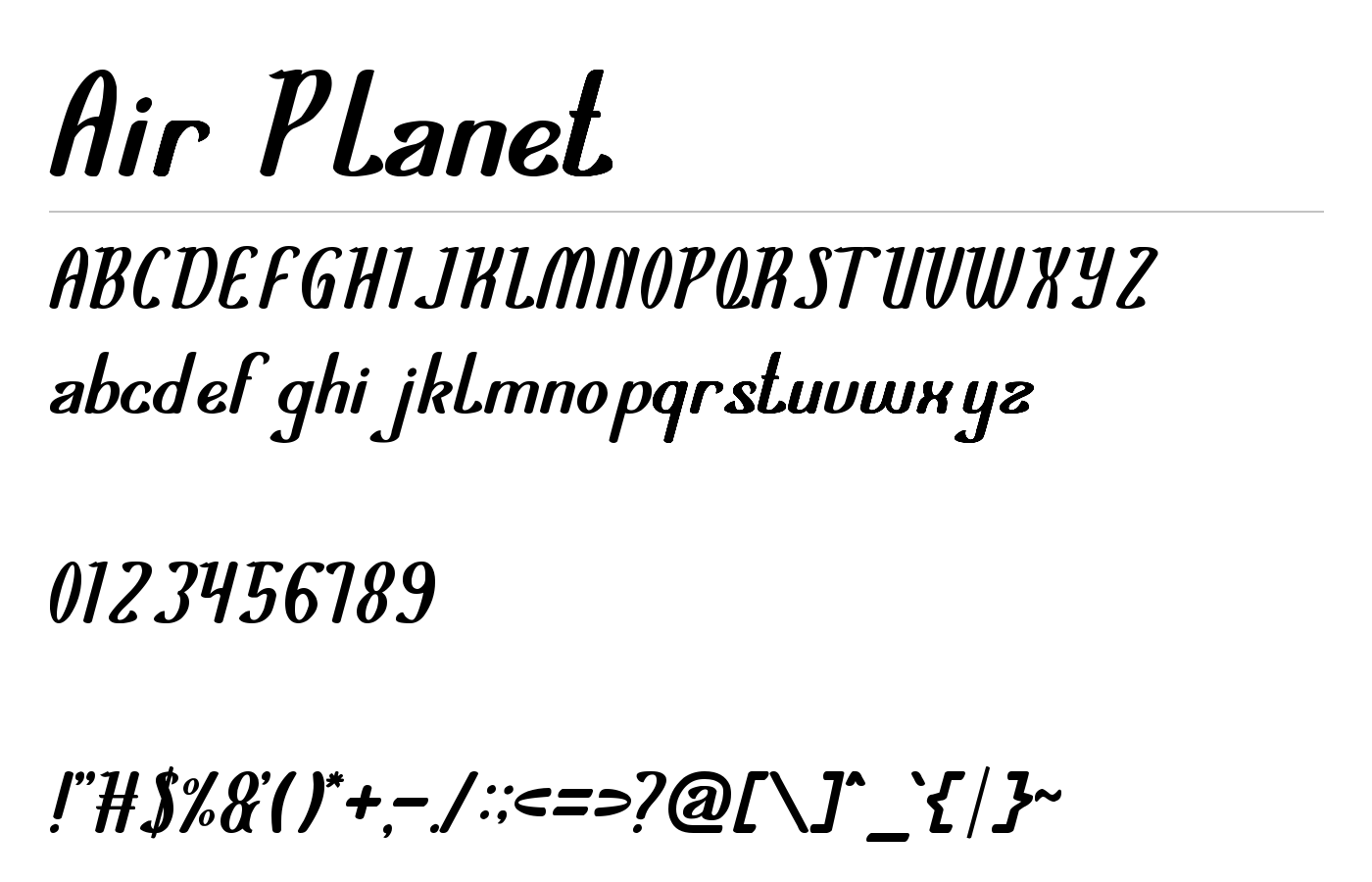
Air Planet is a stylish, cursive-inspired sans serif font with a medium weight and a narrow, condensed width. Its smooth, slightly slanted letterforms and delicate curves give it a modern yet playful personality, making it ideal for creative branding, packaging, and eye-catching headlines. This font's elegant flow and unique character shapes work well to convey a sense of movement and energy.
About Air Planet Font